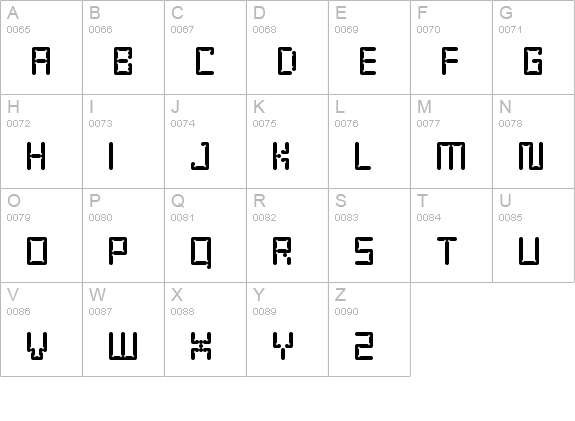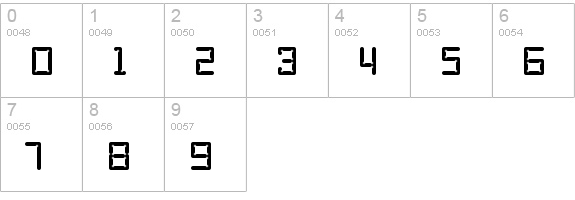
Enam Font Details
Enam font is a modern and stylish typeface that exudes elegance and sophistication. Its sleek lines and contemporary design make it perfect for a wide range of projects, from branding to editorial design. The versatility of Enam font allows it to be used in various design applications, adding a touch of class and professionalism to any project. Best of all, Enam font is available for free download at FontsMarket.com. This means that you can easily access this beautiful typeface without any cost, making it a valuable addition to your font collection. Whether you're a graphic designer, a web developer, or a content creator, Enam font is sure to elevate your designs and help you stand out from the crowd. Download Enam font today and discover the endless possibilities it offers for your creative projects.